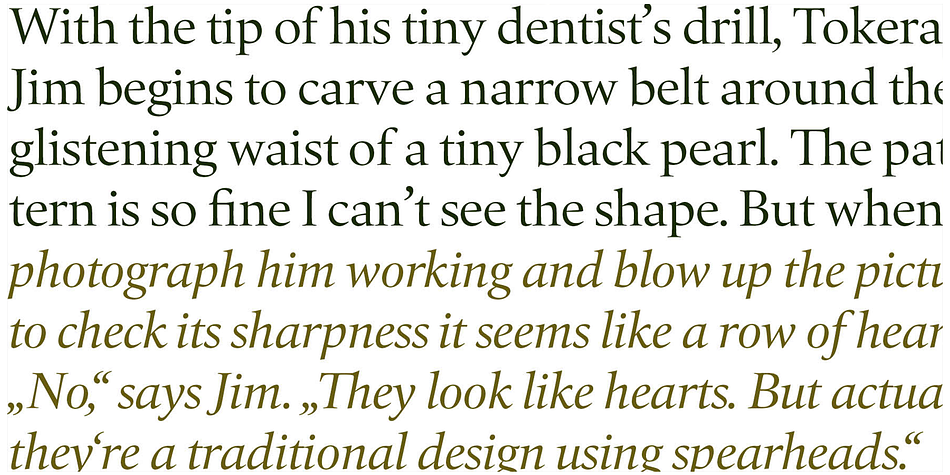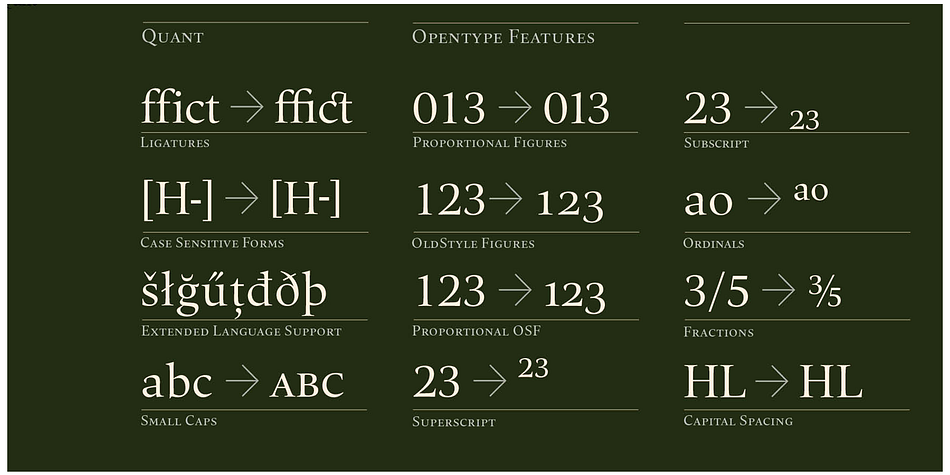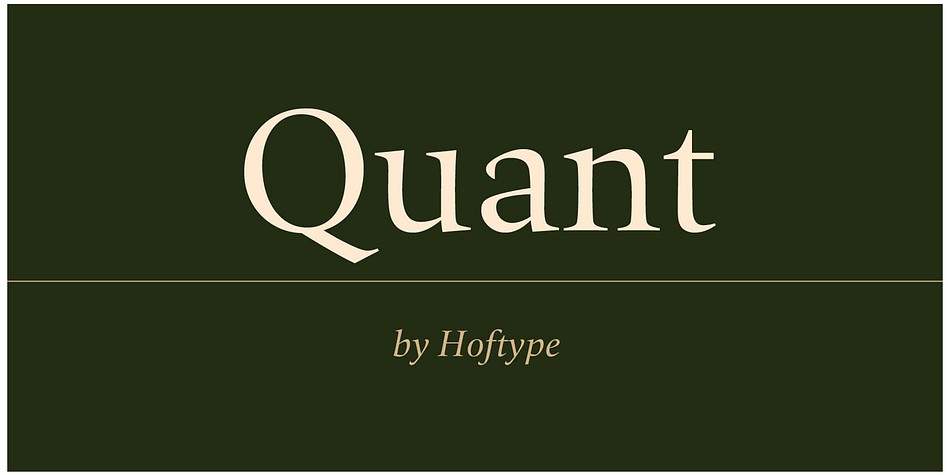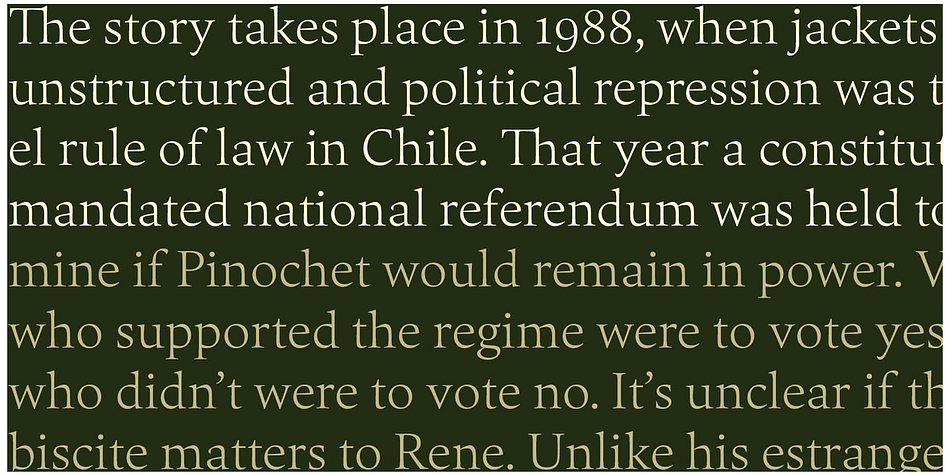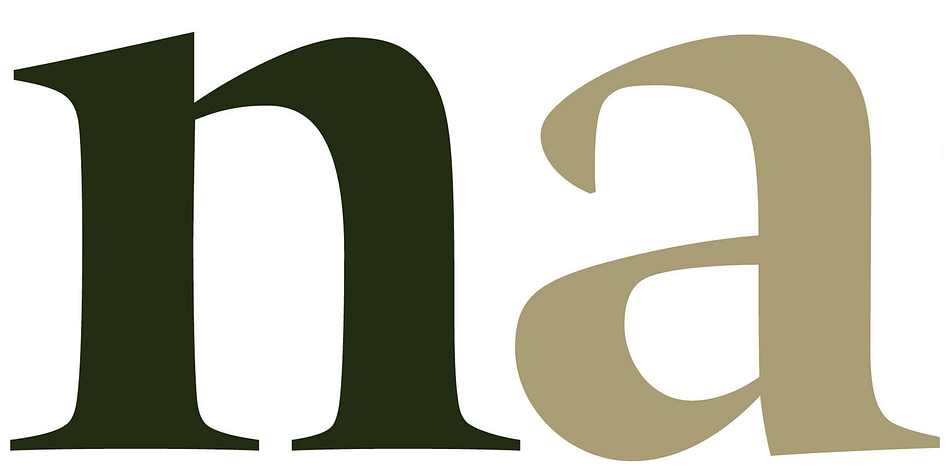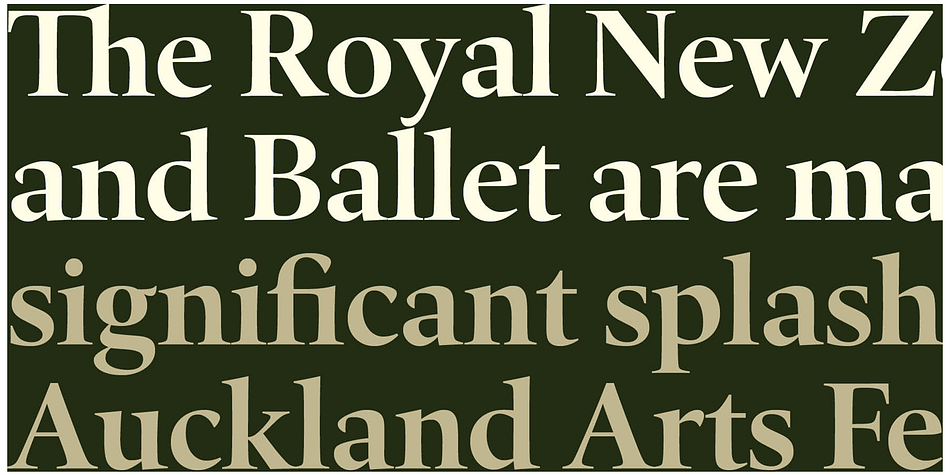
Quant is a serif font family. This typeface has eight styles and was published by Hoftype.
Quant is a contrasted typeface with a fresh and well-reasoned appearance. It owes allegiance to classical structure but is a free design and does not refer to any historical model. Although it has strong qualities as a reading type, its distinct and powerful ductus makes it superb for headlines and in display sizes.
Quant is well-equipped for ambitious typography. The Quant family consists of 8 styles, comes in OpenType format with extended language support for more than 40 languages. All weights contain small caps, proportional lining figures, tabular lining figures, proportional old style figures, lining old style figures, matching currency symbols, fraction- and scientific numerals.